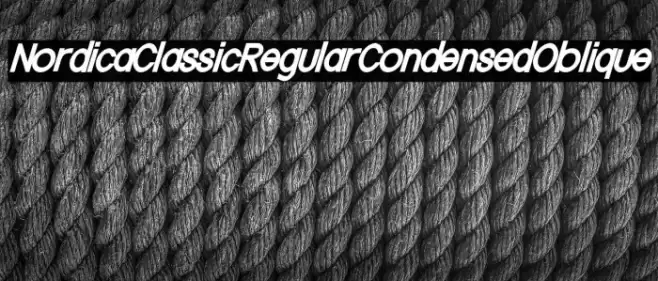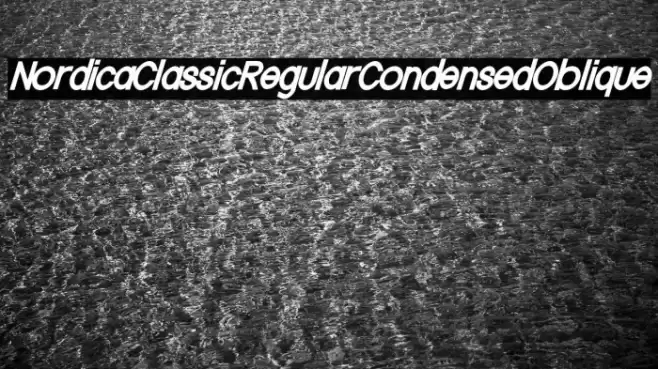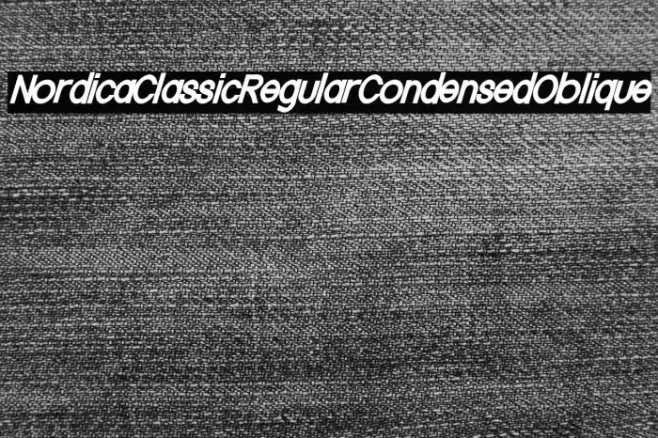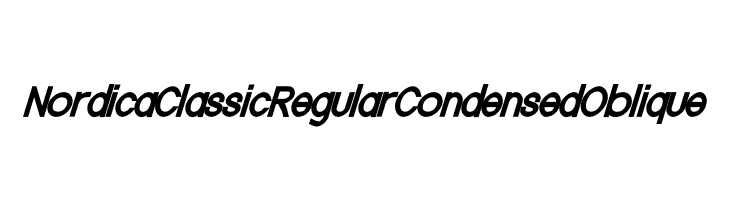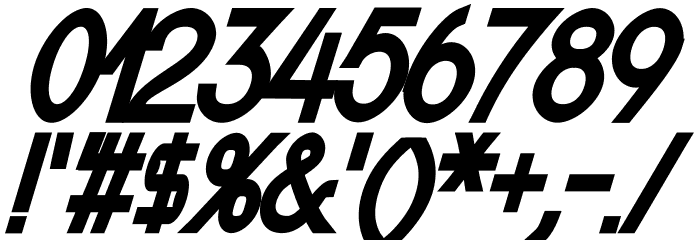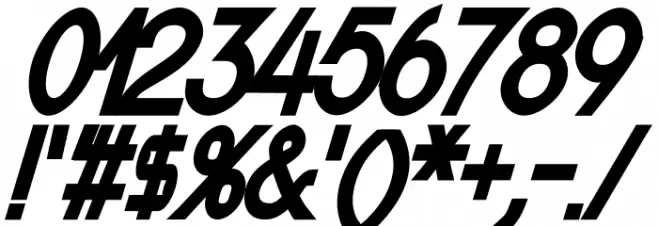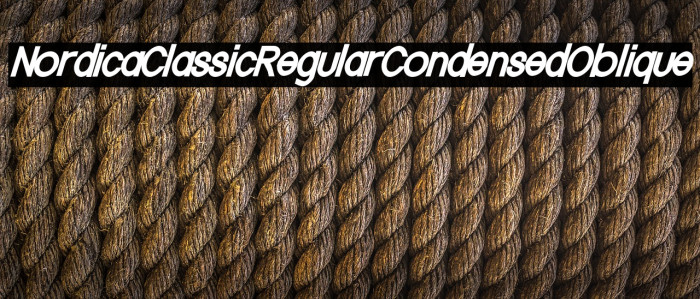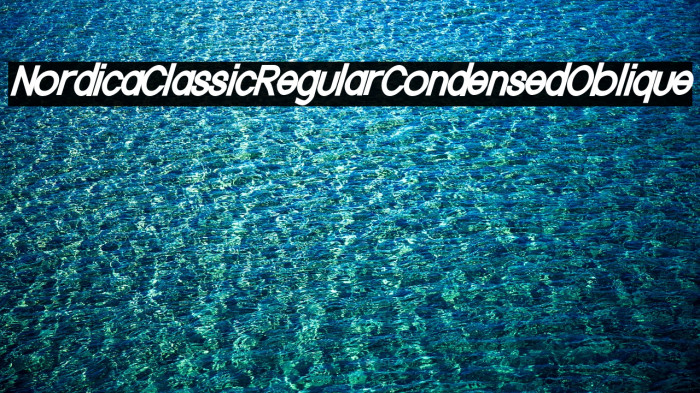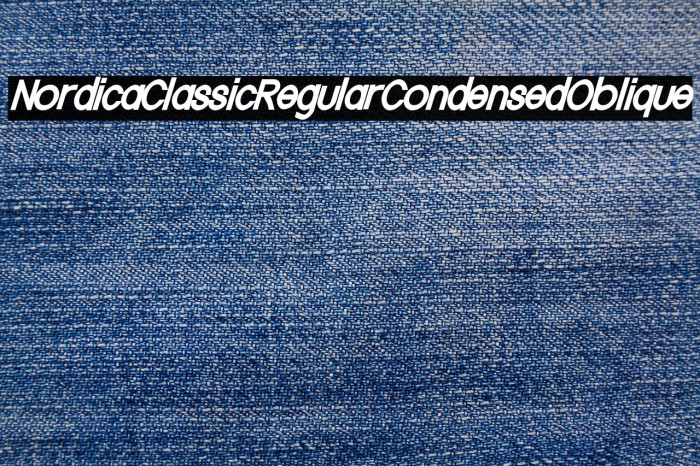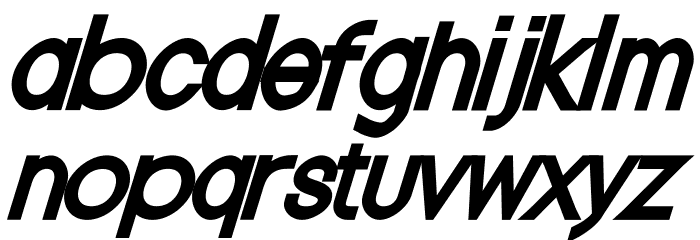
Nordica Classic Regular Condensed Oblique
This font features a sleek and modern design with a condensed and oblique style. The characters are bold and slightly slanted, giving a dynamic and forward-moving appearance. The uppercase and lowercase letters maintain a consistent height, creating a uniform look. The numerals are clear and distinct, complementing the overall aesthetic. Special characters are well-defined, adding versatility to the font. The condensed width allows for efficient use of space, making it suitable for various design applications.
A modern, bold, condensed, and oblique font with a sleek design.
- Proposed Projects: Ideal for branding, advertising, headlines, and editorial design where a modern and dynamic look is desired.
- Width: Condensed
- Use Case: Headlines, Logos, Advertising